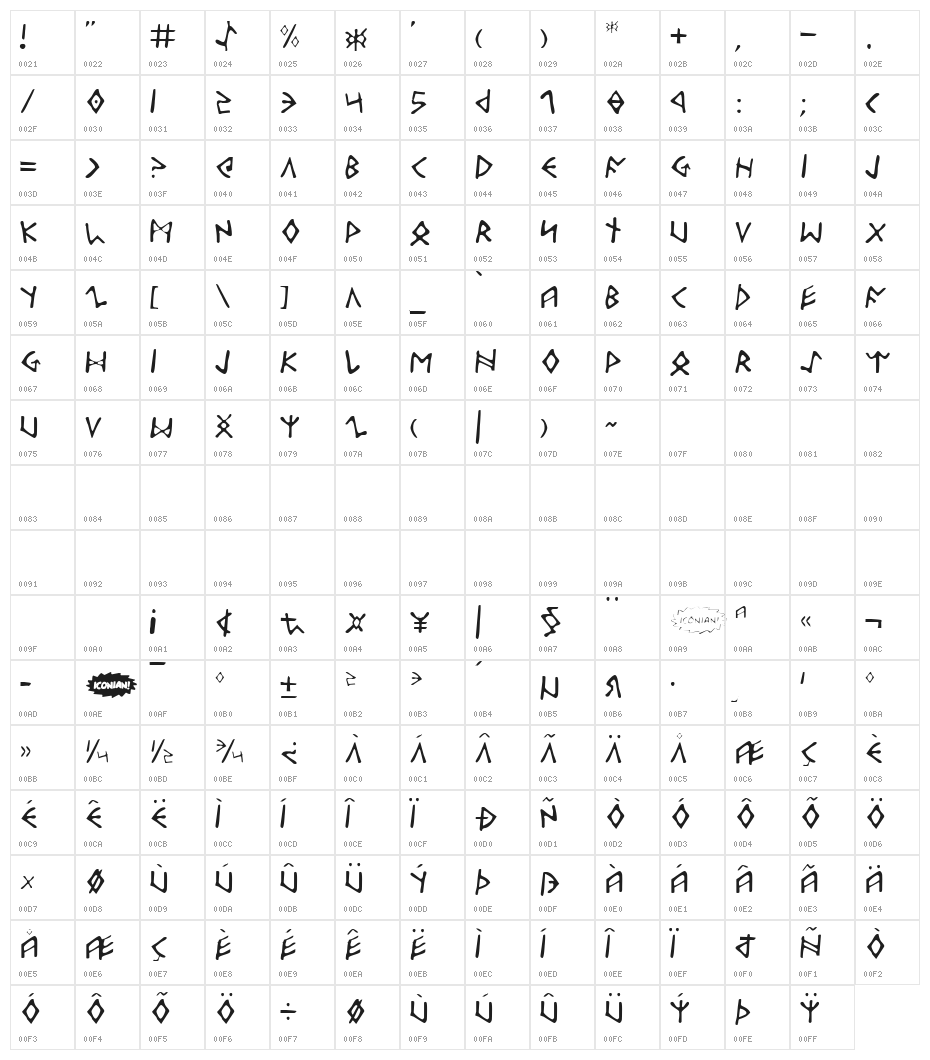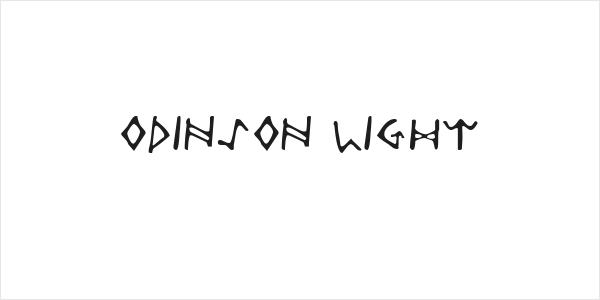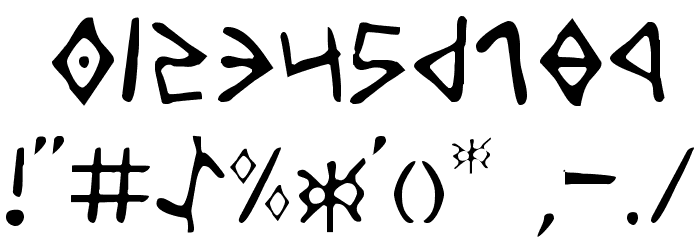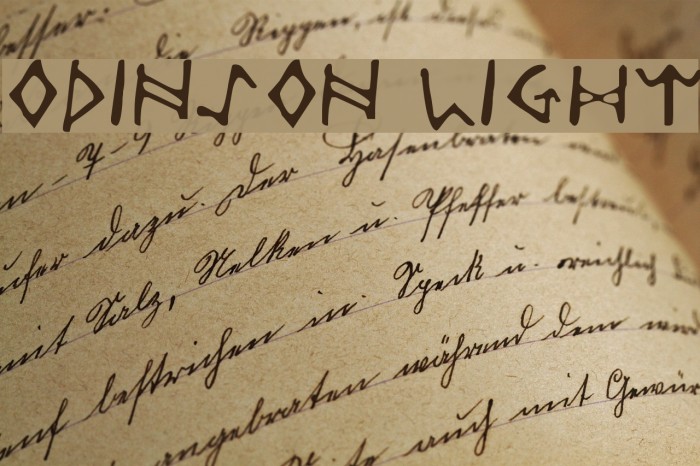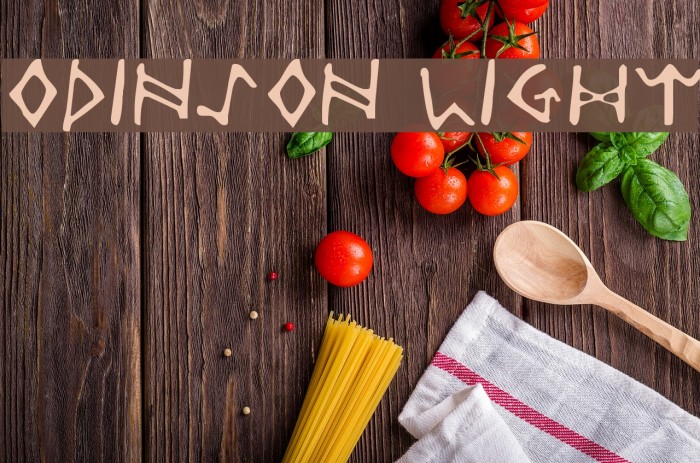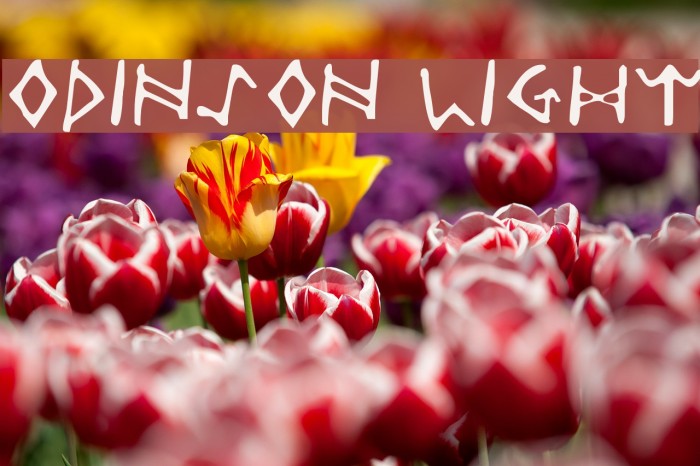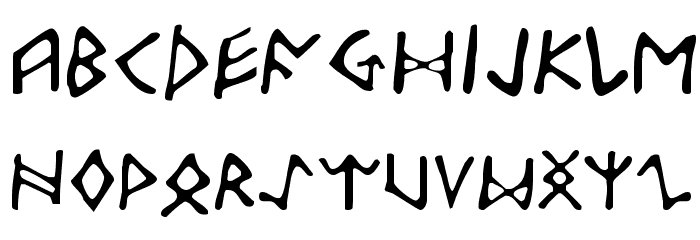
Odinson Light Font
Odinson Light Description
This font features a unique, angular design reminiscent of ancient runic alphabets. Each character is crafted with sharp edges and distinct geometric forms, giving it a bold and striking appearance. The uppercase and lowercase letters maintain a consistent style, with a slight variation in size and form. Numbers and special characters are designed to match the overall aesthetic, ensuring a cohesive look across all text. The font's style is both decorative and functional, making it suitable for a variety of creative projects. Its distinctive appearance makes it ideal for use in themes related to mythology, fantasy, or historical contexts.
ODINSON-LIGHT UPPERCASE
ODINSON-LIGHT LOWERCASE
ODINSON-LIGHT OTHER CHARS
| Use Case | Headlines, Logos, Themed designs |
| Proposed Projects | Ideal for fantasy-themed designs, game titles, book covers, and historical or mythological projects. |